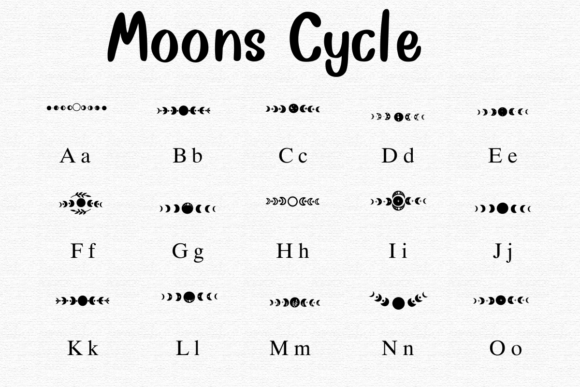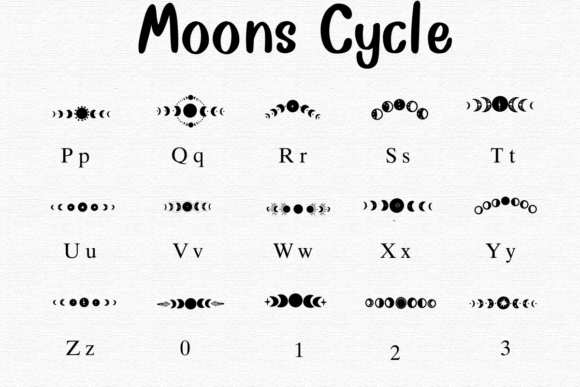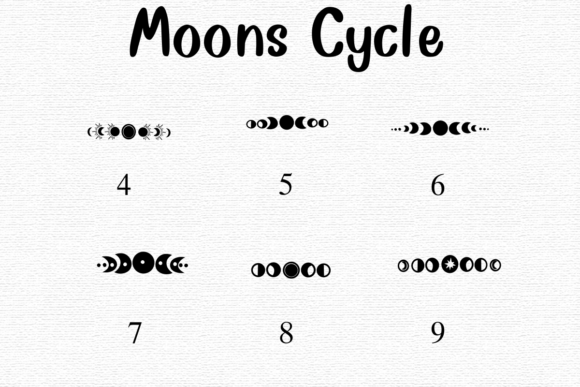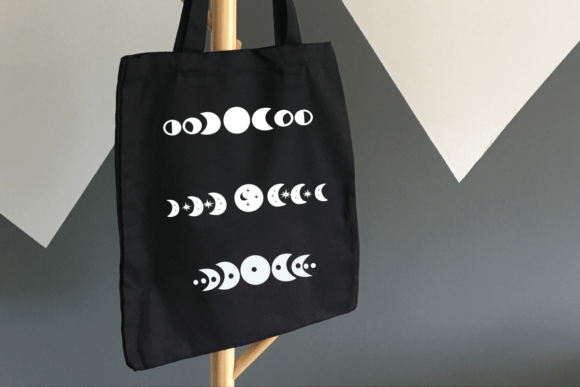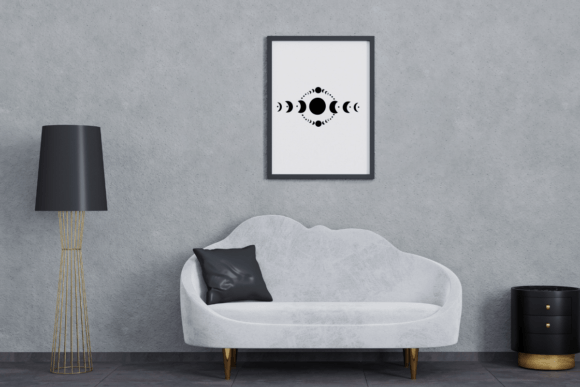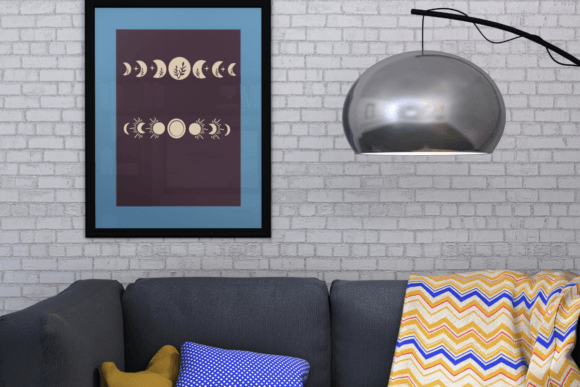
Introduction to Moon Cycle Font
Have you ever found yourself stuck in a creative rut, scrolling through design resources, searching for that perfect element to elevate your project? I know I have. But what if I told you there’s a font that can transport you to a world of whimsy and wonder? Enter the enchanting Moon Cycle Font, a delightful dingbat font featuring an array of cute, dreamy moon shapes.
Whether you’re working on a children’s book, a wedding invitation, or a social media graphic, the Moon Cycle Font is the perfect design resource to add a touch of magic to your project. With its transparent background and high-quality design, you can easily layer it with your existing elements to create a unique and eye-catching look. And the best part? It’s a free download, making it accessible to designers of all levels.
Key Features of Moon Cycle Font
- High-quality design resource with a unique, dreamy aesthetic, perfect for creative projects.
- Features a transparent background, allowing for easy layering and customization in design compositions.
- Unique characteristics include a lunar-inspired design motif, evoking the mystery and beauty of the night sky.
- Perfect for designers seeking a high-quality, creative font for their projects, from branding to editorial design.
Honest Review: Moon Cycle Font
I recently stumbled upon the Moon Cycle Font, and I must say, it’s a game-changer for any creative project. The moment I downloaded this font, I knew I had something special.
- ✨ High-quality design: The Moon Cycle Font boasts a beautiful, intricate design that’s perfect for adding a touch of elegance to any project.
- ✨ Transparency: The font has a transparent background, making it easy to layer over other design elements.
However, I do have to mention a few limitations:
- ⚠️ Limited font sizes: The Moon Cycle Font only comes in a few font sizes, which might limit its usability in certain projects.
- ⚠️ Not ideal for large blocks of text: Due to its intricate design, the Moon Cycle Font is best suited for headings and short paragraphs.
Overall, I’m thoroughly impressed with the Moon Cycle Font. Its unique design and transparent background make it a valuable addition to any design resource. If you’re looking for a high-quality font to elevate your creative project, I highly recommend giving the Moon Cycle Font a try.
Moon Cycle Font
The Moon Cycle Font is a high-quality, free download design resource perfect for creative projects. With a transparent background, this versatile font is ideal for adding a touch of elegance and sophistication to your designs.
Getting the Most Out of Moon Cycle Font
To get the most out of the Moon Cycle Font, try experimenting with different font sizes and styles to create visually appealing designs. You can also pair the font with other design elements, such as images and shapes, to add depth and interest to your projects.
The Moon Cycle Font is ideal for a variety of creative projects, including:
- Birth announcements and baby shower invitations
- Photography captions and quotes
Q: Can I customize the Moon Cycle Font for my specific design needs?
While the Moon Cycle Font is a high-quality design resource, it’s not customizable in the classical sense. However, you can use font editing software to create custom variations or modify the font to suit your specific design needs. Please note that any modifications may void the font’s licensing terms.